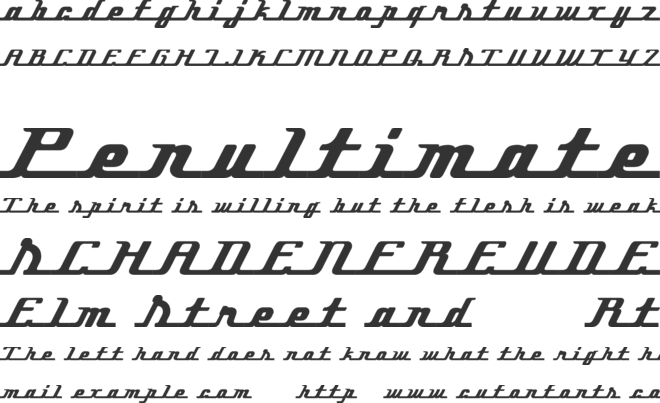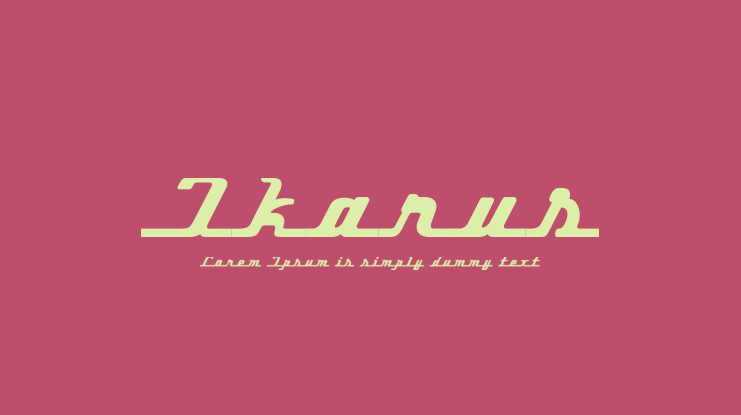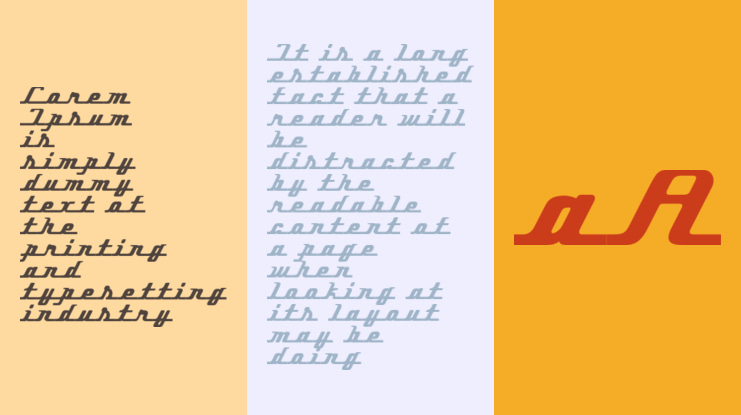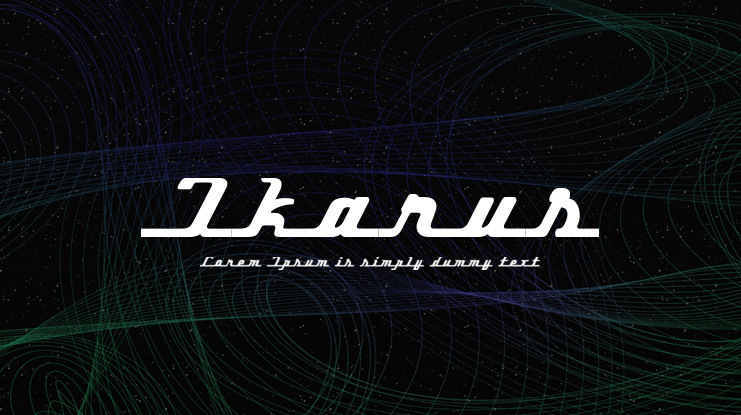
Ikarus Font
Typeface Ikarus is based on city bus company Ikarus bus logo. Research showed, there has been made 3 different hand drawed logos just with very slight differences. So this typeface is done, knowing only one cap and four lowercase letters. Ikarus font contains 167 characters, including begining and end shapes, wich helps to make slight variety in bigger ammount of text. Continous shape on the bottom of the letters lets to create integral letter combinations